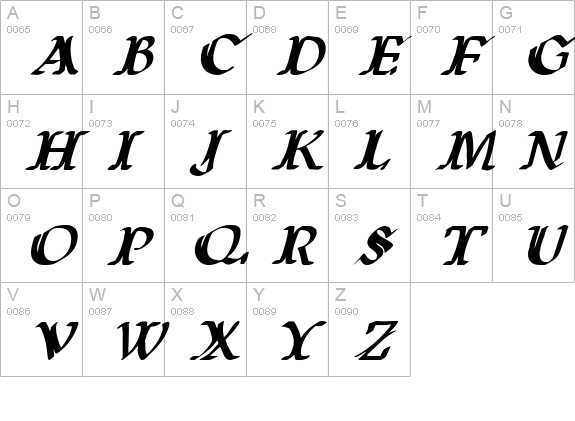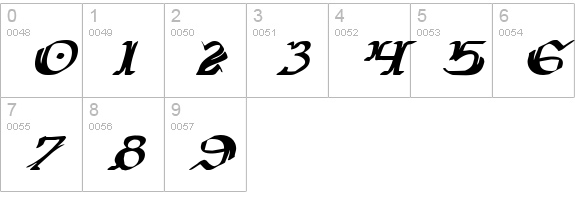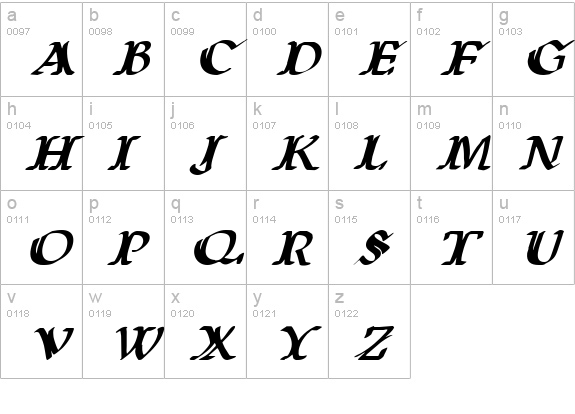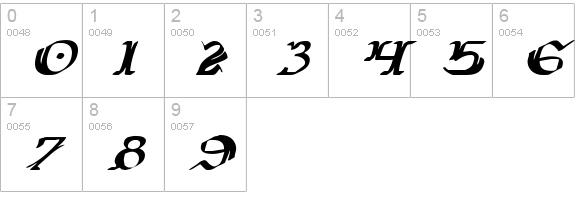
Wars of Asgard Italic Font Details
Wars of Asgard Italic is a distinctive, italic variant in the Wars typeface family \xE2\x80\x94 well suited to design and typography projects.
Wars of Asgard Italic font is a bold and dynamic typeface inspired by the epic battles of Norse mythology. With its sharp angles and powerful strokes, this font exudes strength and courage, making it the perfect choice for projects that demand attention and impact. Designed for those who seek to make a statement, Wars of Asgard Italic font is versatile and eye-catching, adding a touch of drama to any design. Whether you're creating posters, logos, or branding materials, this font will help your message stand out and leave a lasting impression. Best of all, Wars of Asgard Italic font is available for free download at FontsMarket.com. Now you can add a touch of Norse mythology to your projects without breaking the bank. Don't miss out on this powerful and striking font - download Wars of Asgard Italic today and unleash the warrior within your designs.